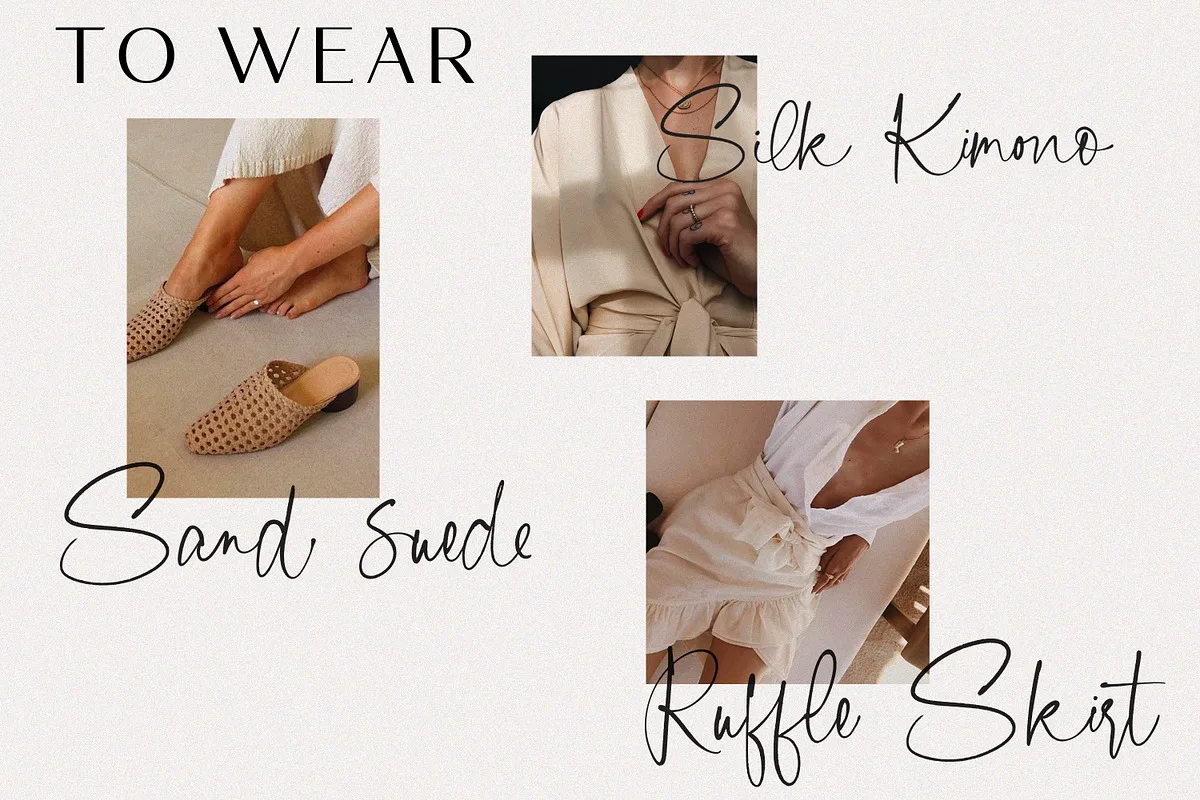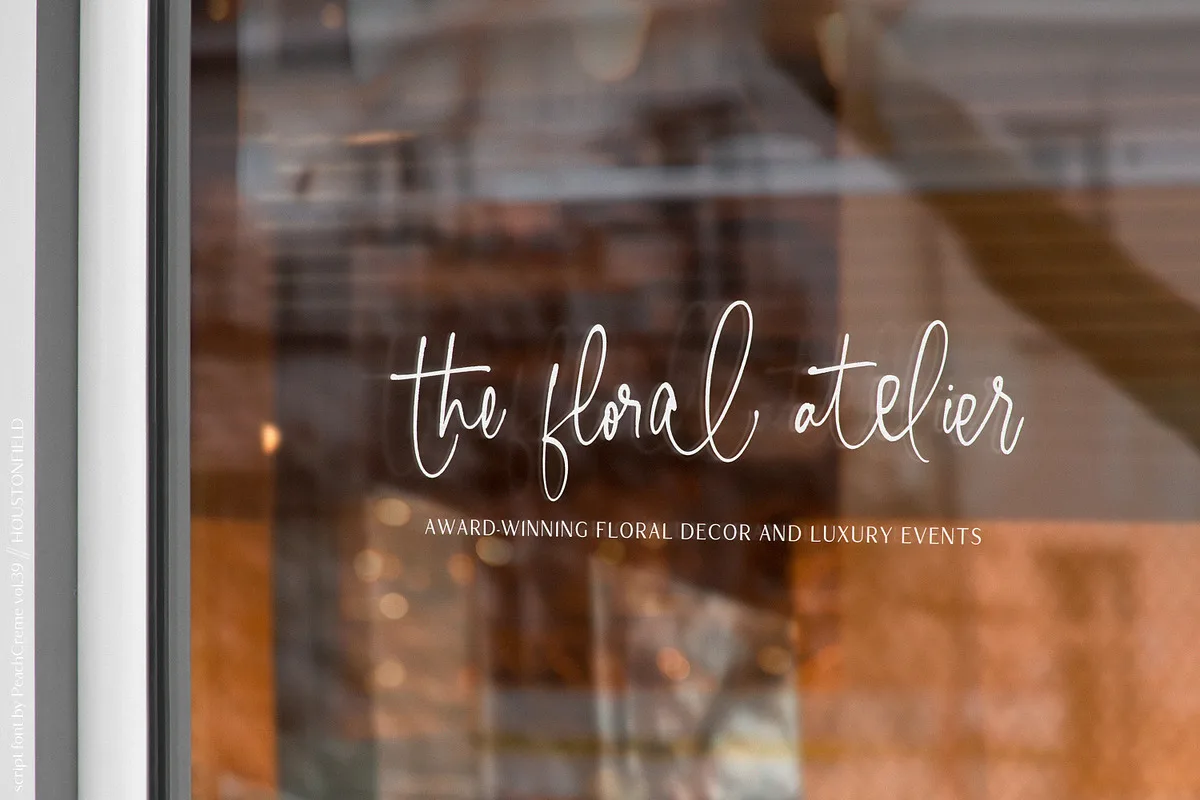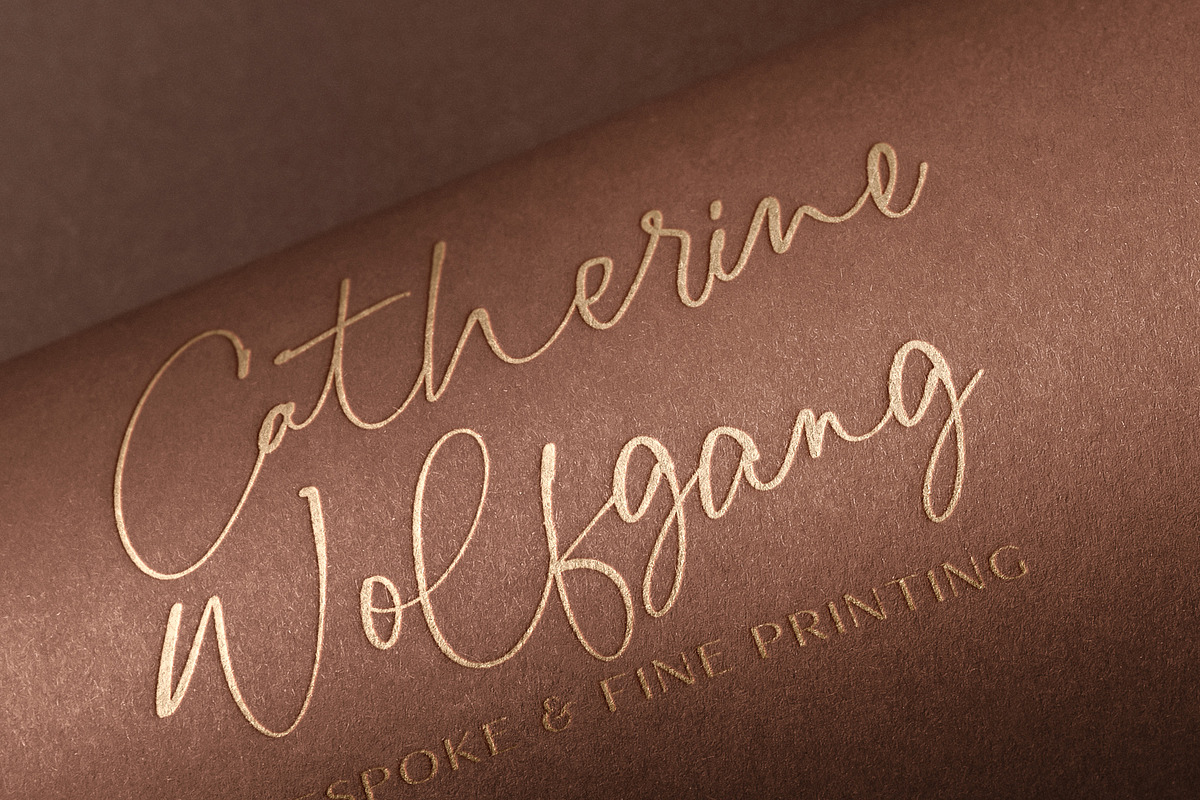
Houstonfield Font
Houstonfield is a stylish, chic script font. Add a touch of luxury and elegance to your projects.
It is perfect for branding projects, logo, wedding designs, social media posts, advertisements, product packaging, product designs, label, photography, watermark, invitation, stationery and any projects that need handwriting taste.
Houstonfield Script Font
Houstonfield font preview — sample text
Houstonfield font alphabet, numbers and glyphs
Houstonfield font style preview